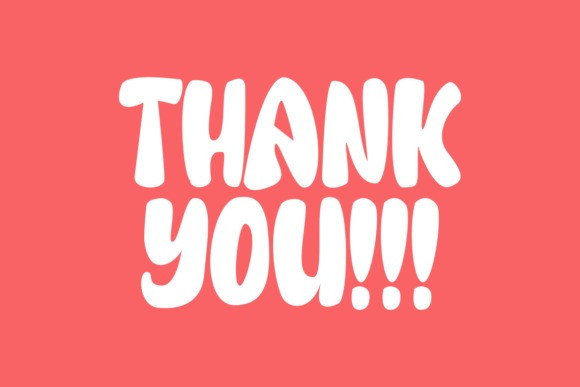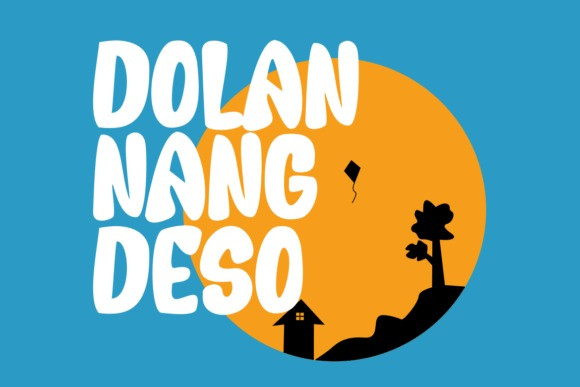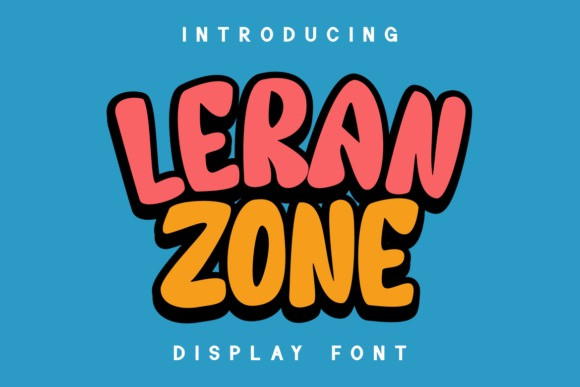
Leran Zone Font
Leran zone Display Font is a cartoon-style display font with incredibly joyful characters. It is perfect for any creative project that requires easy-to-read yet inviting typography.